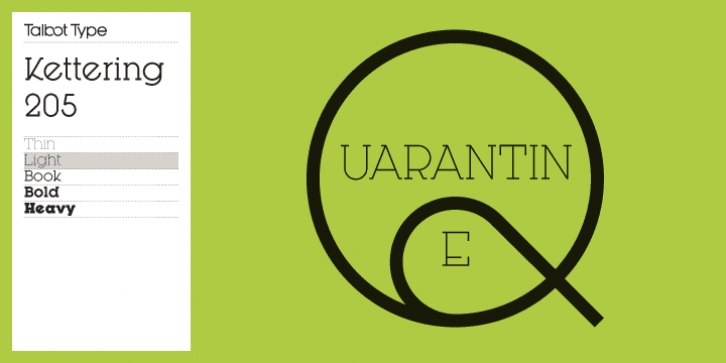
Kettering 205 is inspired by the classic, geometric slab-serifs such as Lubalin, but has shallower ascenders and descenders for a more compact look, and features art deco influenced, lowered crossbars and an oblique crossbar on the lower case e. It’s a versatile, modern slab-serif, highly legible as a text font and with a distinctive, elegant look as a display font at larger sizes. The Kettering 205 family comprises of five weights and is closely related to Kettering 105.